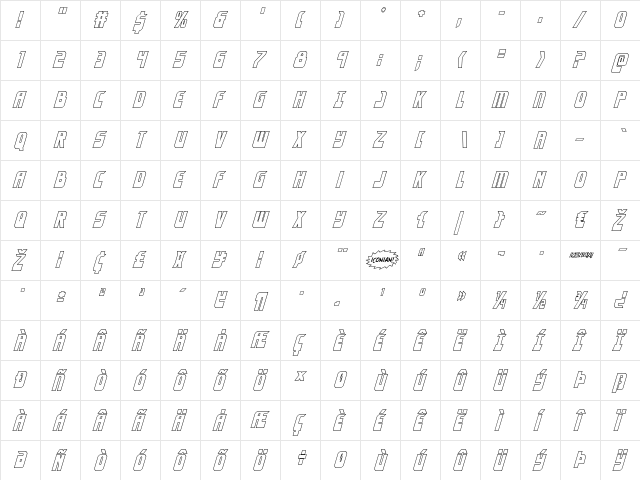
Eldebaran Outline Italic Italic
Design Context for Eldebaran Outline Italic Typeface
Eldebaran Outline Italic is built around its visual character rather than neutral utility — its distinctive forms are designed to make an impression at display sizes. The slanted form adds forward momentum and visual energy.
Font Pairing: Pair with a clean neutral sans-serif for body copy to let Eldebaran Outline Italic's character lead without overwhelming the composition.
Pro Tip: Use Eldebaran Outline Italic exclusively at display sizes — it was designed to be seen, not read at length. Let a neutral companion handle body copy.